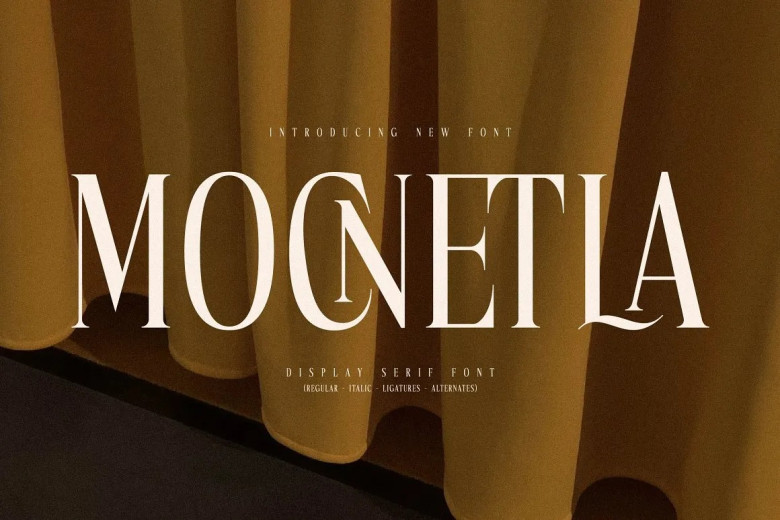
Mocnetla font, by Storytype. A classic and modern serif font with its own style and look that can be used for luxury logos, book or movie titles, t-shirts clothing magazines letters quotes etc.
Mocnetla Serif Font